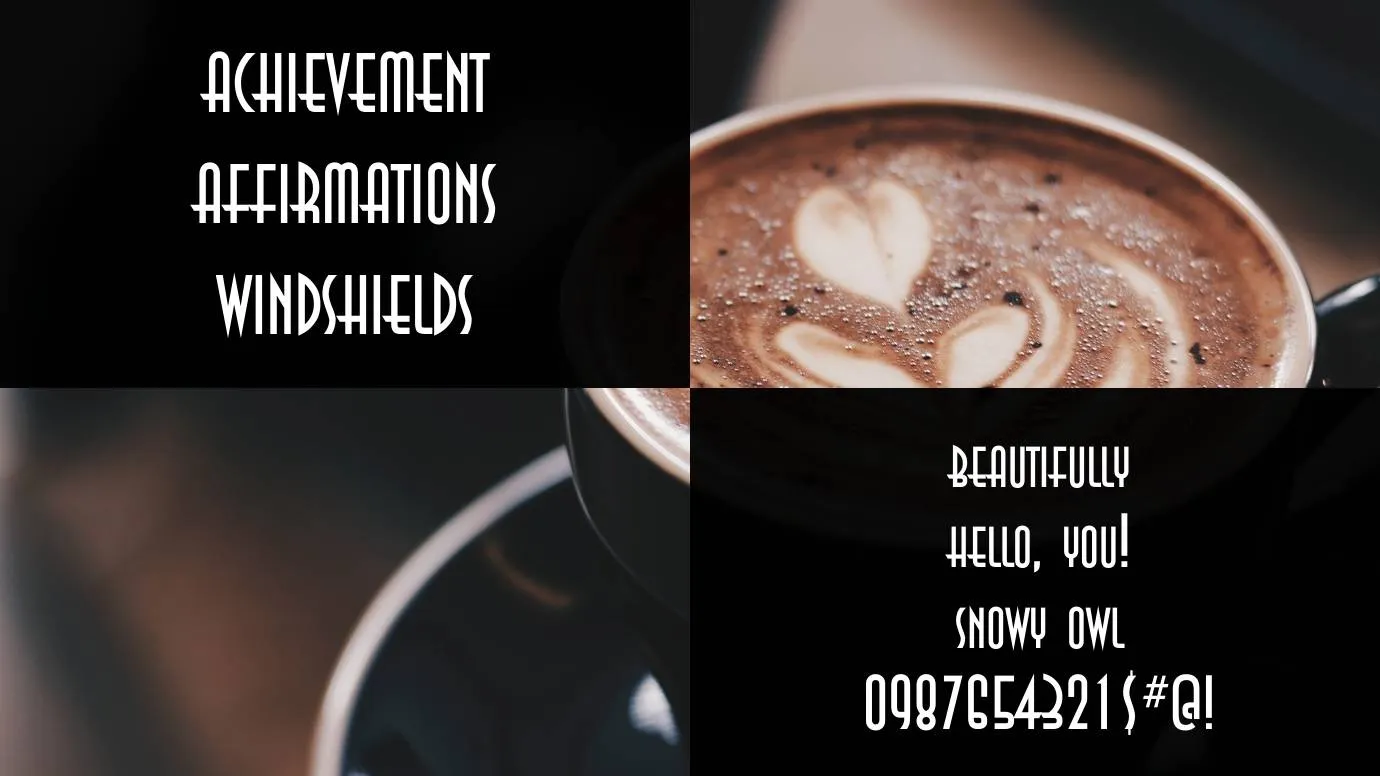
Fidelio Cafe Font was designed by Jim Parkinson in 1996. The font is named after the coffeehouse in San Francisco where Jim Parkinson and his wife used to hang out.
The font is based on the typeface used in the coffeehouse’s sign. Parkinson took inspiration from both the sign and the coffeehouse itself when designing the font. The Fidelio Cafe Font has a unique look that sets it apart from other fonts. It is perfect for creating vintage-inspired designs.
If you are looking for a font with a bit of personality, then the Fidelio Cafe Text is a great choice. Fidelio Cafe Font is best for Vintage designs, Personality-filled projects and branding, Cafe and coffeehouse-themed designs, and signage.
This font is available in both Regular and Bold weights. Each weight contains over 250 characters, including uppercase and lowercase letters, numbers, punctuation marks, and accented characters.
Creator of Fidelio Cafe Font
It was designed by Jim Parkinson in 1996. The font is named after the coffeehouse in San Francisco where Jim Parkinson and his wife used to hang out.
This single, appealing style incorporates several elements, such as capital and lowercase letters, numbers, punctuation, characters, special symbols, glyphs, and language support.
View of Fidelio Cafe Font
What type of projects is the Fidelio Cafe Text best suited for?
It is perfect for creating vintage-inspired designs. It is also a great choice for projects that require a font with personality.
How many weights does the Fidelio Cafe Texture come in?
It is available in both Regular and Bold weights. Each weight contains over 250 characters, including uppercase and lowercase letters, numbers, punctuation marks, and accented characters.
What is included in each weight of the Fidelio Cafe Typeface?
Each weight of the Fidelio Cafe texture includes over 250 characters, including uppercase and lowercase letters, numbers, punctuation marks, and accented characters.